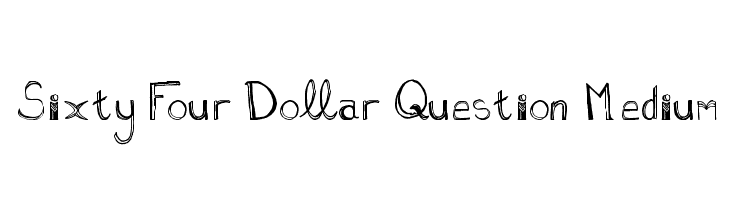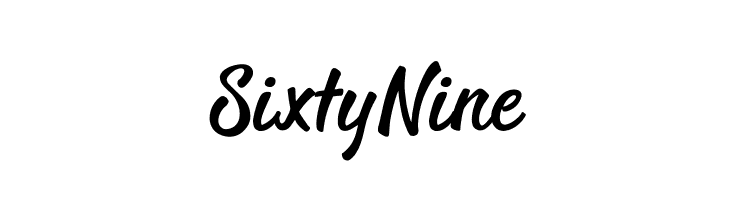
A pixelated, dot-based font with a modern, digital aesthetic.
A bold, brush-style font with expressive, uneven strokes.
A playful, handwritten font with rounded, irregular characters.
A segmented, digital-style font with a retro LED display aesthetic.
A bold, playful handwritten font with dynamic strokes.
A casual, handwritten font with fluid, cursive strokes.
A bold, retro font with playful curves and a 1960s vibe.